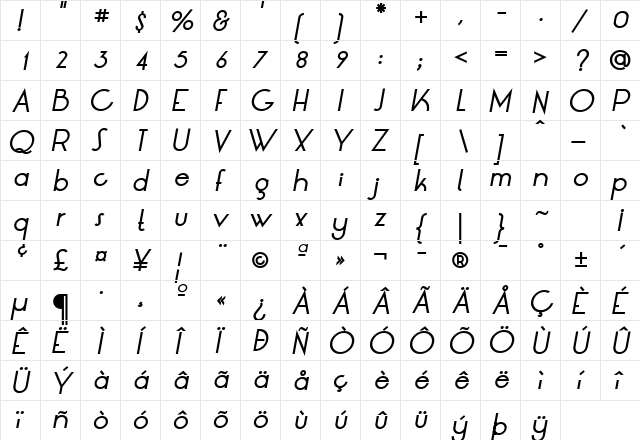
LT Oksana Medium Italic Font Preview
| Designer | Lauren Thompson |
Design Context for LT Oksana Medium Typeface
LT Oksana Medium takes a measured approach to typography — its balanced proportions and neutral character make it a reliable workhorse for both digital and print work. The dynamic lean of this cut emphasises speed and emphasis in any layout. The delicate stroke weight brings airiness and refinement to layouts.
Pro Tip: Use LT Oksana Medium for emphasis, pull quotes, and subheadings where its slanted energy can add rhythm to the layout.